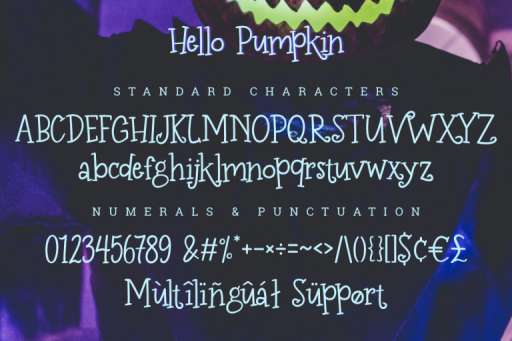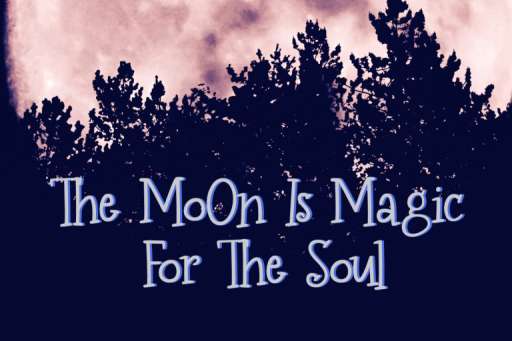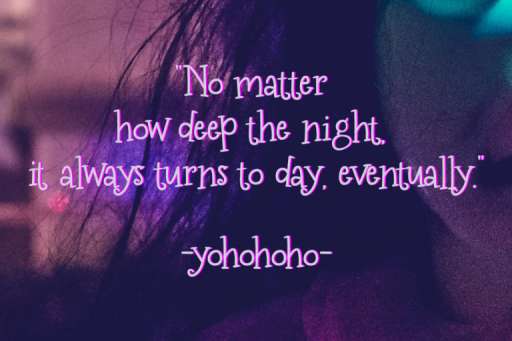
Hello Pumpkin – Serif Halloween Font
Hello Pumpkin is a simple serif font, very easy to read, and very good to use for your craft. This font is suitable for posters, quote, websites, T-shirts, illustrations, cover, etc. Hello Pumpkin font is also perfect for Halloween illustrations.
Hello Pumpkin Features :
- Basic Latin A-Z and a-z
- Numbers and punctuation
- Multilingual